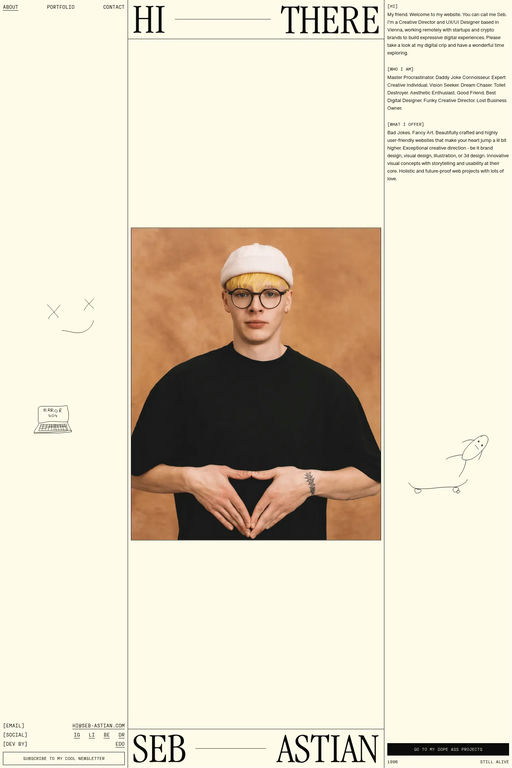
Fraktion Mono is a monospace typeface from Pangram.
Fraktion Mono. The refitted letter shapes of the monospaced design add a surprising playfulness to a genre that generally feels more technical, making Fraktion Mono’s cuts the more informal bunch of the family.